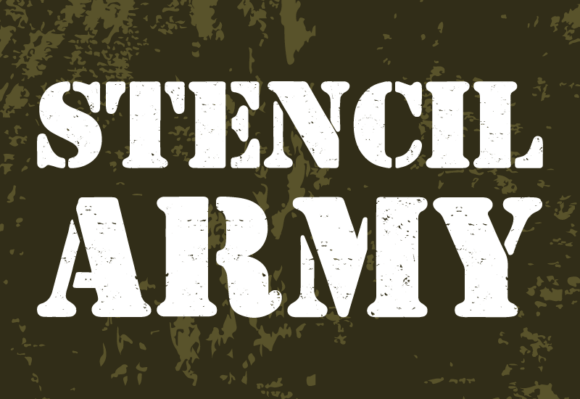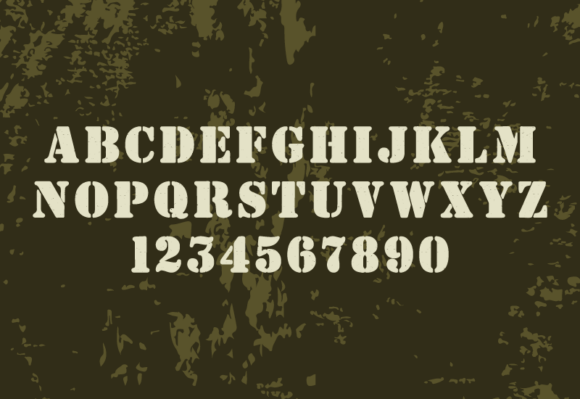
Stencil Army Font
Immerse yourself in the realm of difference with the exceptional ‘Stencil Army’ sans-serif typeface. Embraced for its innovative and slightly offbeat design, the Stencil Army font extends past traditional military typography. This lettering is characterized by bold, unapologetic lines that are imbued with a military and war game texture, culminating in a distressed finish. This typographical trendsetter embodies audacity and unyielding individuality.